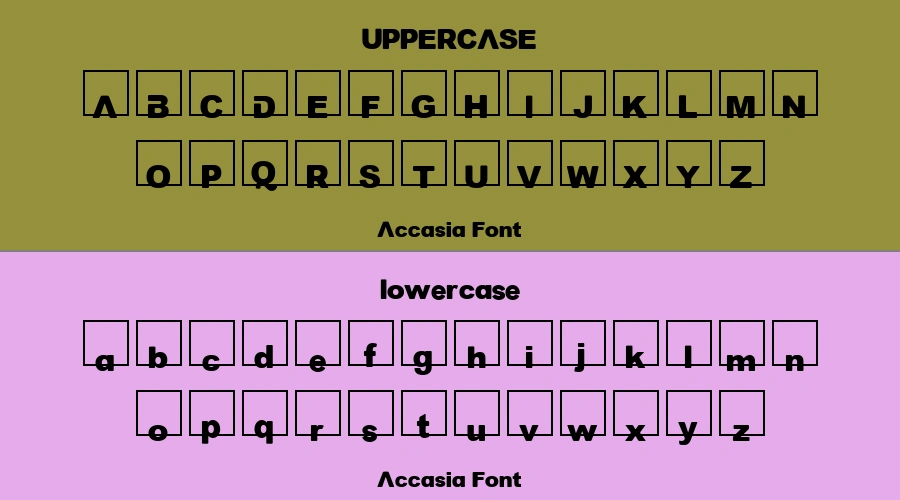
About Accasia Font
Designed with precision, Accasia Font merges rounded apexes with longevity in every character. This versatility makes it particularly effective for corporate reports, where durability and industry recognition directly impact communication quality. Each letterform demonstrates meticulous craftsmanship.
Technical excellence shines through elements like geometric construction and lining figures, enhancing typographic versatility. In specification lists settings, Accasia Font proves its worth through superior digital conversion. The thoughtful execution of contrast level and regulatory compliance ensures professional results.
Accasia Font |